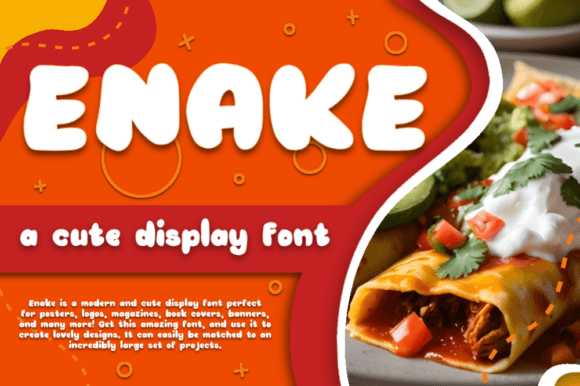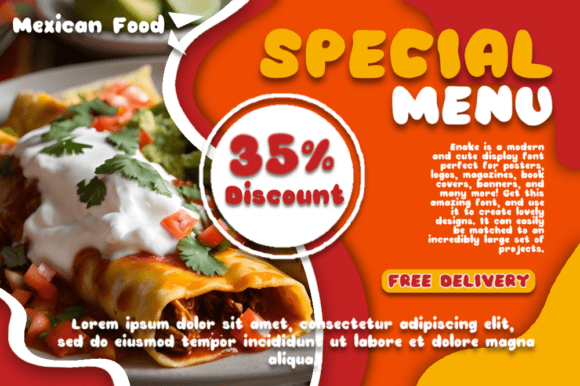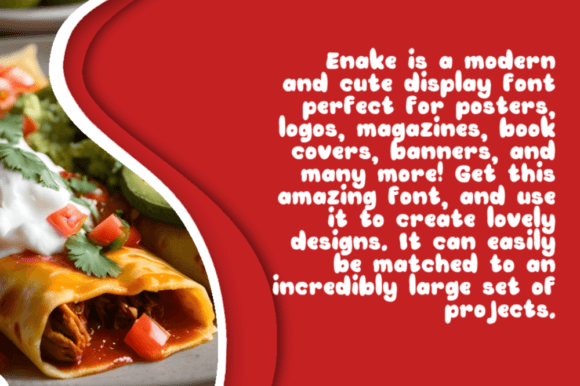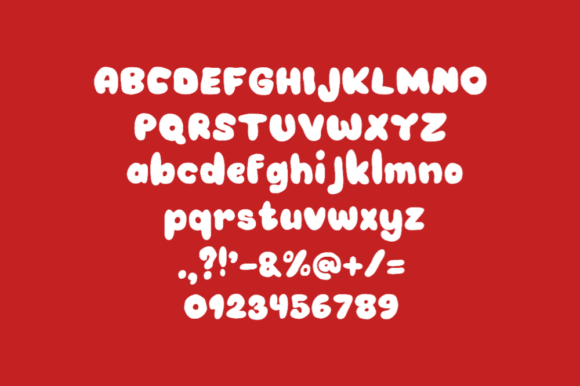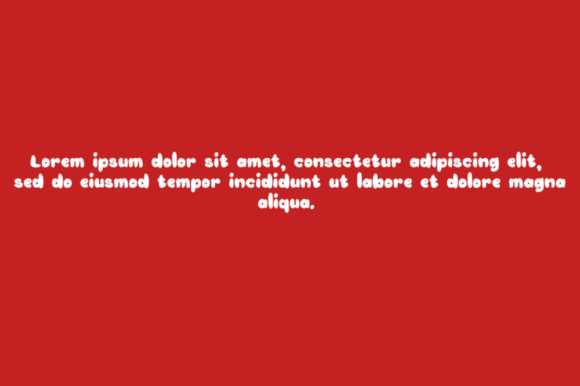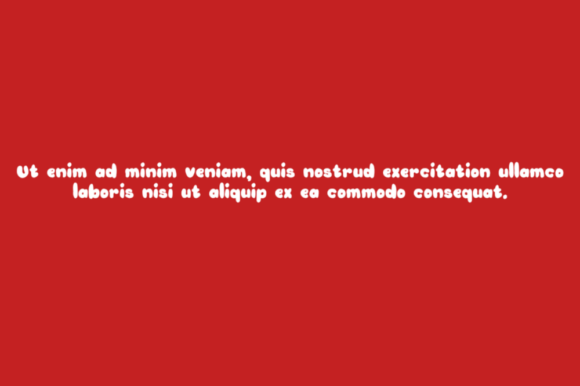
Introducing Enake Font: The Perfect Addition to Your Design Arsenal
Are you a designer or crafter looking for a modern and adorable display font to elevate your creative projects? Look no further than Enake Font! This versatile and charming font is designed to make your designs stand out, whether you’re working on posters, logos, magazines, book covers, banners, or any other visual project.
What Makes Enake Font So Special?
Enake Font is a modern and cute display font that boasts a unique personality. Its clean lines, subtle curves, and balanced proportions make it perfect for a wide range of applications. Whether you’re aiming to create a bold statement or a soft, whimsical feel, Enake Font adapts effortlessly to your design needs.
Key Features of Enake Font
• Modern and Cute Design: Enake Font’s contemporary look makes it ideal for designs that require a fresh and youthful vibe.
• High Versatility: Use Enake Font for posters, logos, magazines, book covers, banners, and many more projects, thanks to its adaptability and wide range of applications.
• Ease of Use: Enake Font is easy to read and works beautifully in both large and small sizes, making it perfect for various design elements.
• Unique Personality: The font’s distinctive style adds a touch of charm to your designs, setting them apart from the ordinary.
How to Use Enake Font in Your Designs
Enake Font can easily be matched to an incredibly large set of projects, making it a valuable addition to your font collection. Here are some ideas to get you started:
Poster Design
Create eye-catching posters for events, promotions, or awareness campaigns. Enake Font’s bold and modern look ensures your message grabs attention.
Logo Design
Give your brand a fresh new look with a custom logo designed using Enake Font. Its unique personality will help your brand stand out.
Magazine and Book Covers
Add a touch of modern charm to your magazine or book cover designs. Enake Font’s readability and aesthetic appeal make it perfect for titles and headings.
Banners and Signage
Make your banners and signage more engaging with Enake Font. Its clean and cute design ensures your message is conveyed effectively.
Why Choose Enake Font?
With so many fonts available, why choose Enake Font? Here are a few compelling reasons:
• Unique Style: Enake Font offers a distinctive look that will set your designs apart.
• High Quality: The font is crafted with attention to detail, ensuring it looks great in any design.
• Easy to Use: Enake Font is straightforward to integrate into your projects, saving you time and effort.
Enake Font is a versatile and charming display font that’s perfect for designers and crafters looking to add a modern touch to their projects. With its unique personality, ease of use, and wide range of applications, Enake Font is an excellent addition to any design arsenal. Get your hands on Enake Font today and start creating stunning designs that capture attention and inspire!